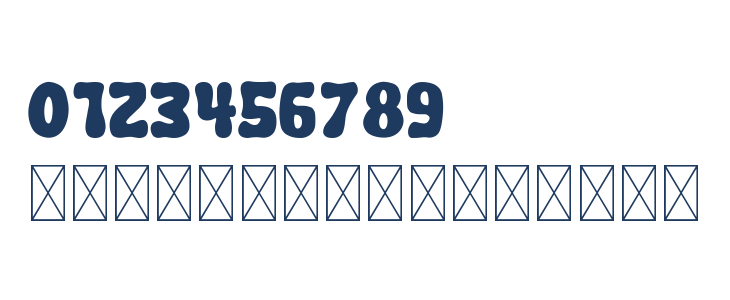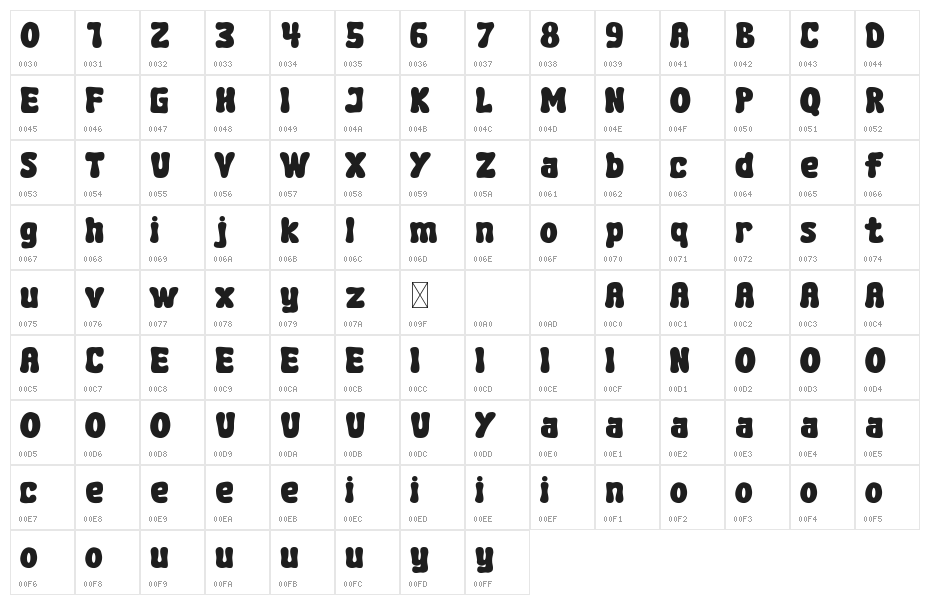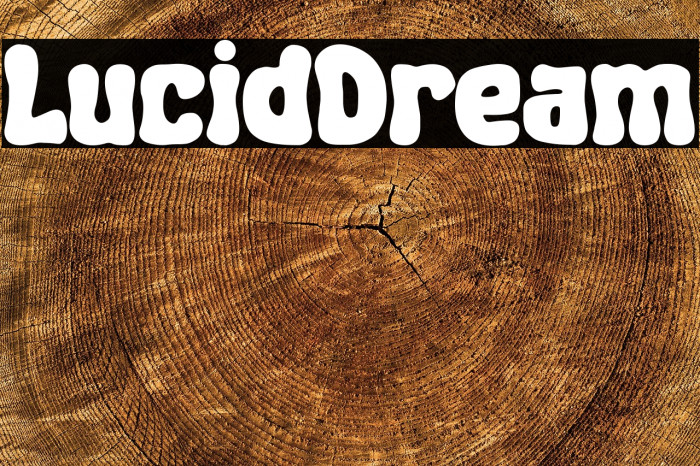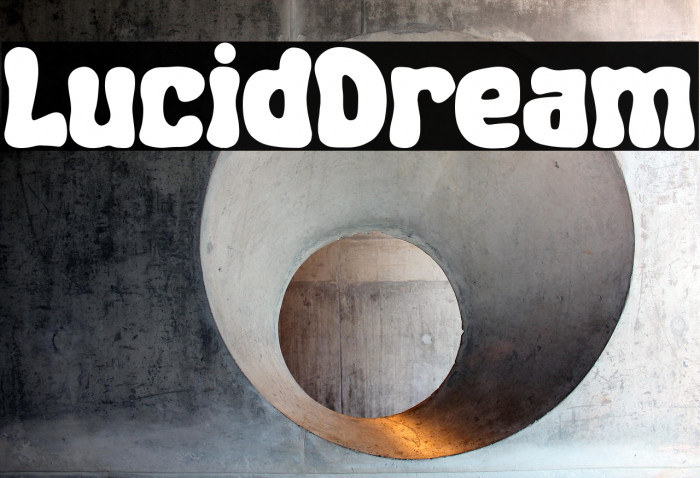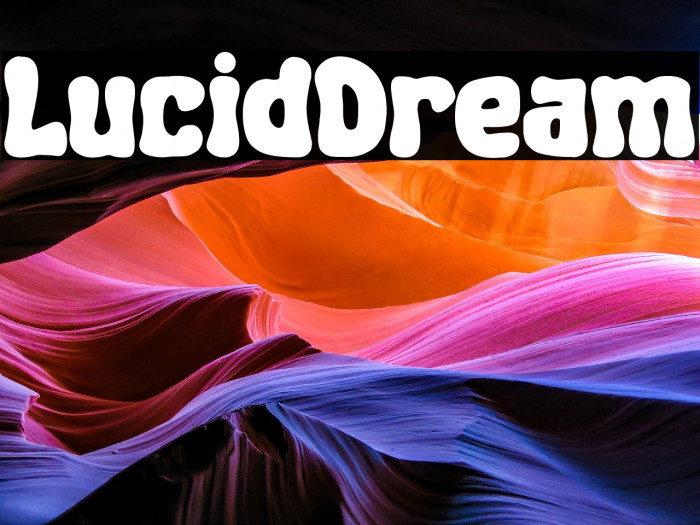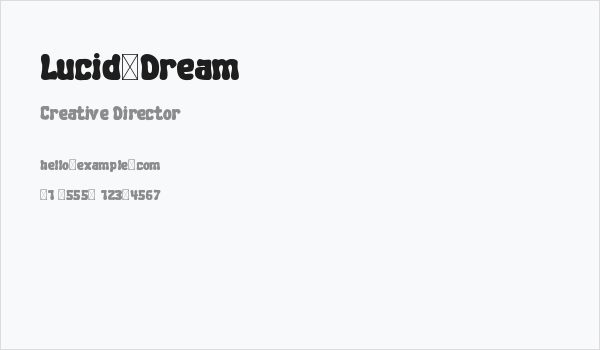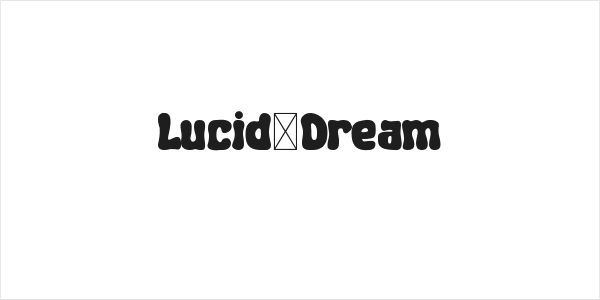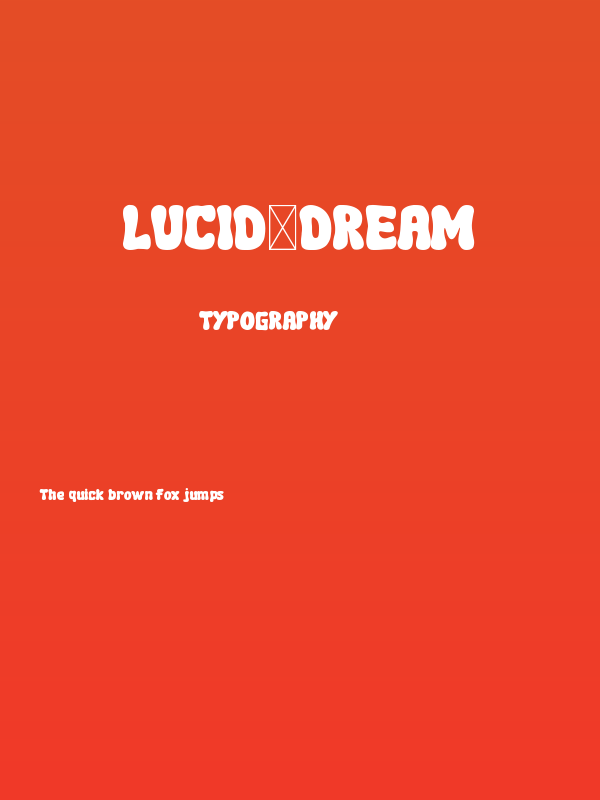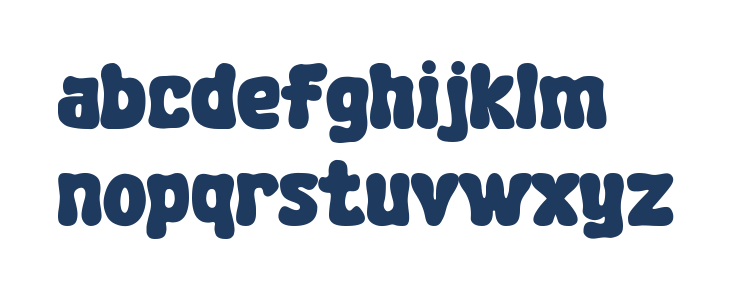
Lucid-Dream Font
Lucid-Dream Description
This playful and bold typeface features rounded, bubbly characters that exude a sense of fun and creativity. The letters are thick and have a soft, organic feel, making them stand out with a unique personality. The font maintains consistent thickness throughout, with smooth curves and no sharp edges, giving it a friendly and approachable appearance. Its whimsical style is perfect for projects that aim to capture attention and convey a sense of joy and imagination. The characters are evenly spaced, ensuring readability while maintaining the font's distinctive style.